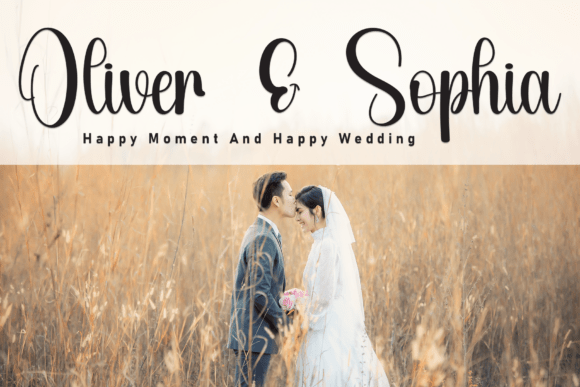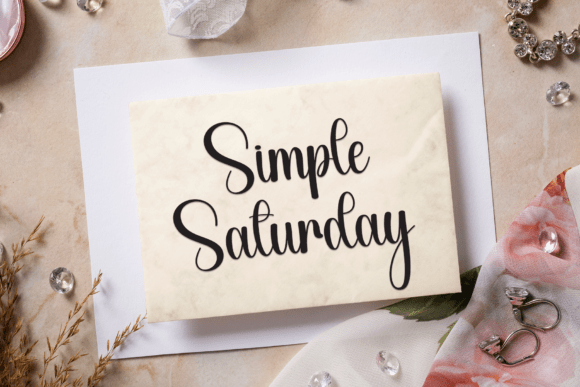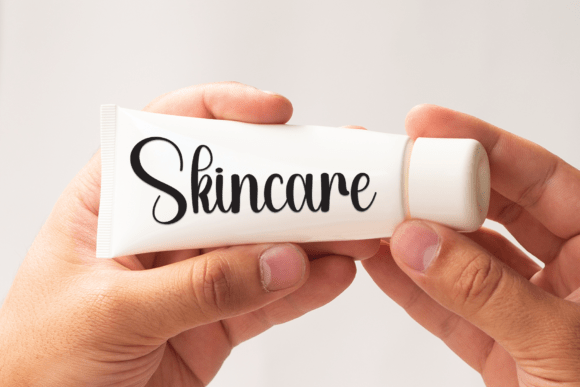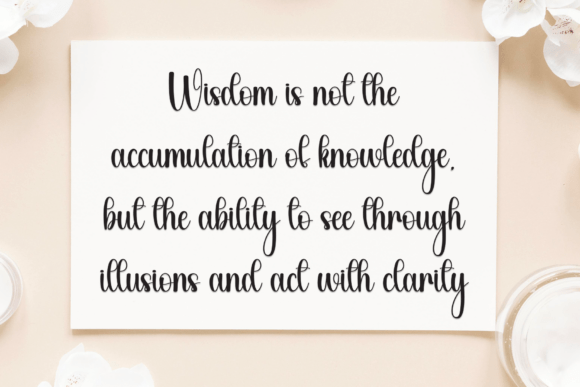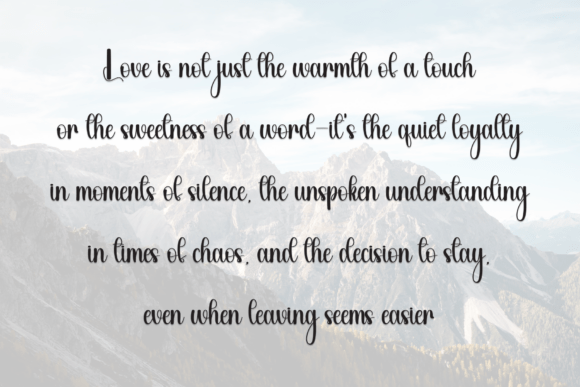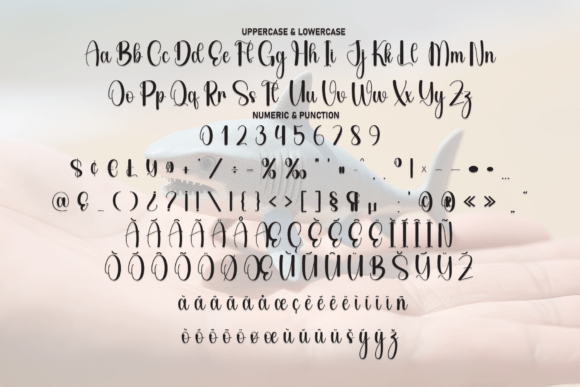
Have you ever been in the middle of a design project, staring at a blank canvas, and suddenly, a font appears in your mind’s eye? For designers, this moment is like finding a treasure – it can make or break a project. And for me, that moment came when I stumbled upon the enchanting Babyshark Font.
This elegant script font is more than just a pretty face; it’s a game-changer for designers looking to add a touch of sophistication to their work. With its fluid curves and carefully crafted letterforms, Babyshark Font brings a modern twist to traditional hand-drawn calligraphy, making it perfect for logos, invitations, and social media graphics.
Whether you’re a seasoned designer or just starting out, Babyshark Font is a valuable addition to your toolkit, offering versatility and visual appeal in equal measure.
Baby Shark Font Key Features
- Font Style: The Baby Shark Font is a playful, handwritten font with a childlike charm, ideal for kids’ content, entertainment, and education.
- Unique Characteristics: The font features bold, expressive lines, and whimsical flourishes, making it perfect for creating eye-catching titles, headings, and graphics.
Designer Review: Babyshark Font
At first glance, I thought the Babyshark Font was going to be a novelty font that I’d use for a quick project and then forget about. But after diving deeper, I found some interesting aspects of this font.
What works well: ✨ The font’s playful and quirky nature is perfect for creating attention-grabbing graphics and logos. The rounded edges and soft curves give it a friendly feel that’s great for kids’ content or entertainment-related projects. I also appreciate the font’s versatility, as it can be used for both digital and print media.
Limitations: ⚠️ The font’s readability can be a concern, especially at smaller sizes. The characters can become pixelated, which may affect the overall quality of the design. Additionally, the font’s uniqueness can be a double-edged sword. While it’s great for attention-grabbing purposes, it may not be suitable for more formal or professional projects.
Overall, I’d say the Babyshark Font is a fun and creative tool for designers who want to add a playful touch to their projects. Just be mindful of the limitations and use it accordingly.
Design Tips
- Use the font at larger sizes to maintain readability.
- Experiment with different colors and combinations to create a visually appealing design.
- Consider using the font for graphics and logos, rather than body text.
Use the Babyshark Font for fun and playful designs, such as birthday invitations, children’s party decorations, and nursery decor.
Combine the Babyshark Font with other playful fonts and graphics to create a cohesive and engaging design.